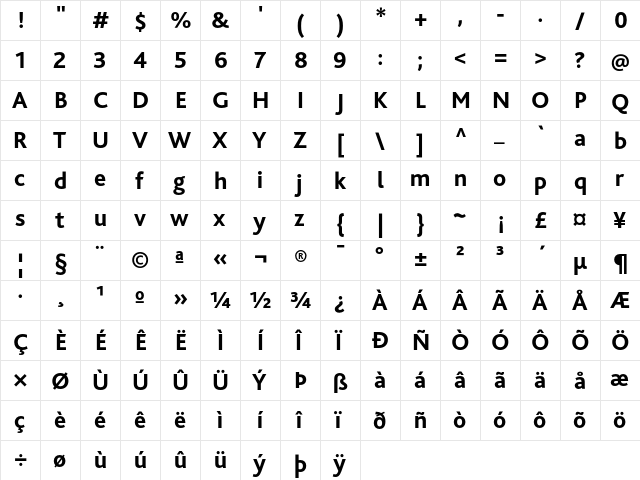
BlissPro Regular Font Preview
BlissPro Regular
BlissPro Regular Font Details
| Foundry | JT Types Ltd, |
Design Context for BlissPro Typeface
BlissPro is a composed and adaptable typeface that performs quietly and consistently across a wide range of design contexts.